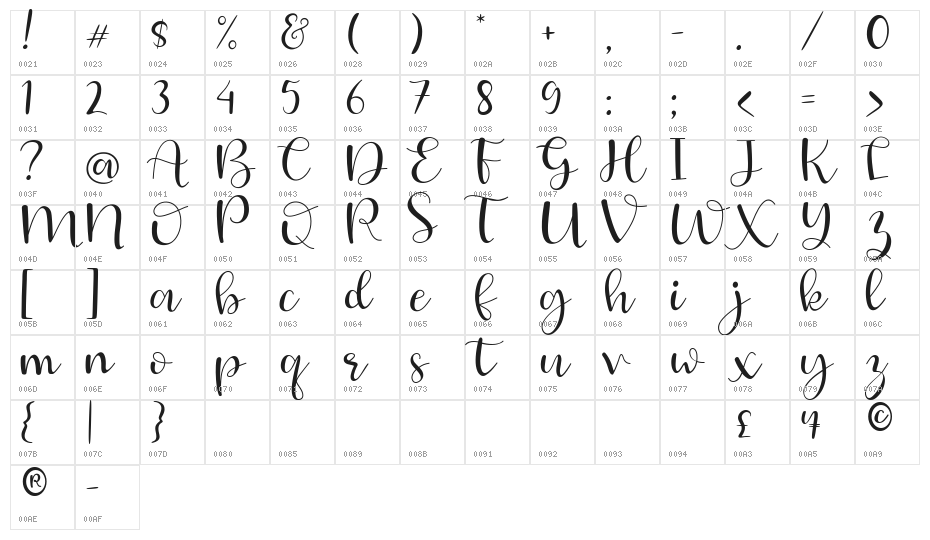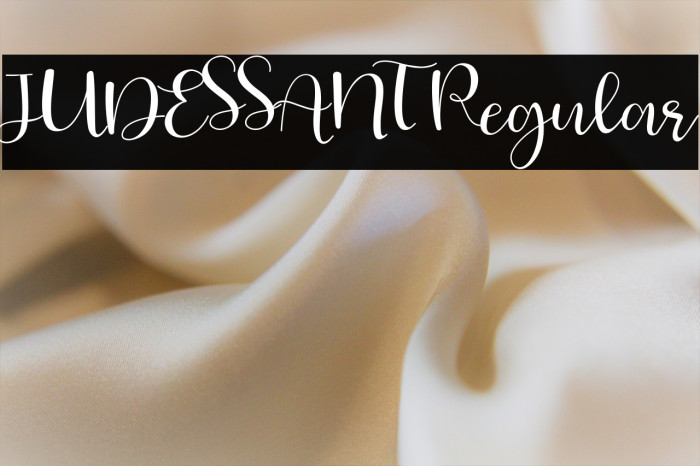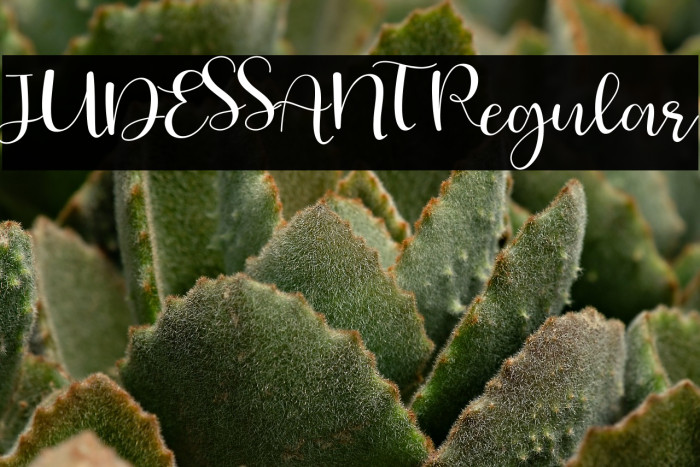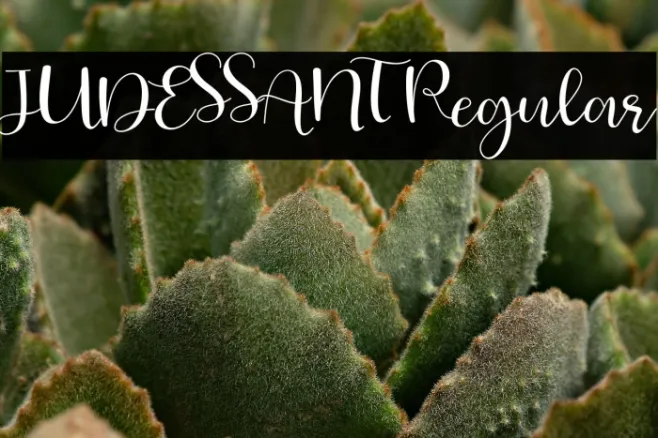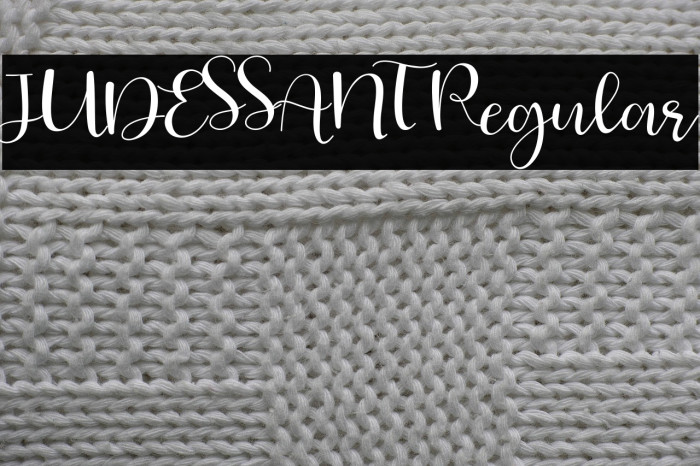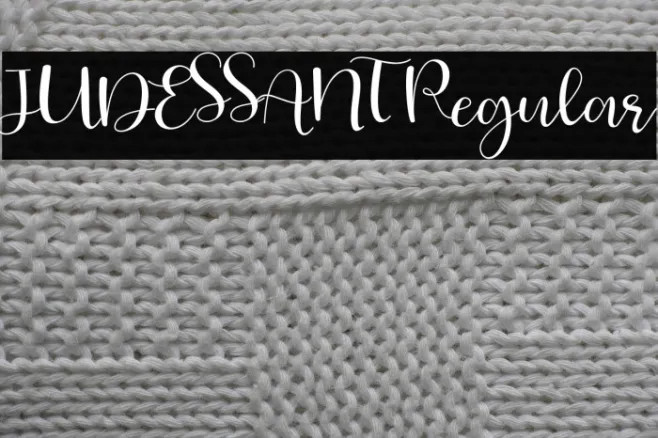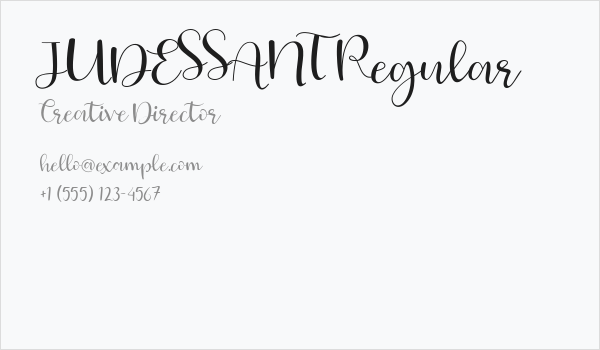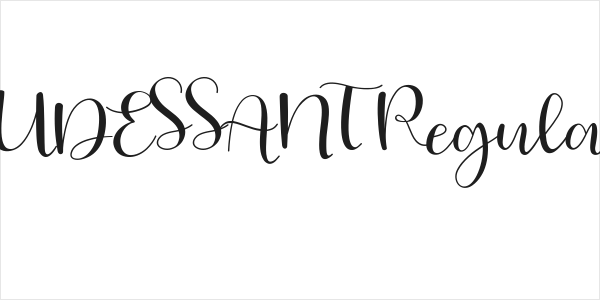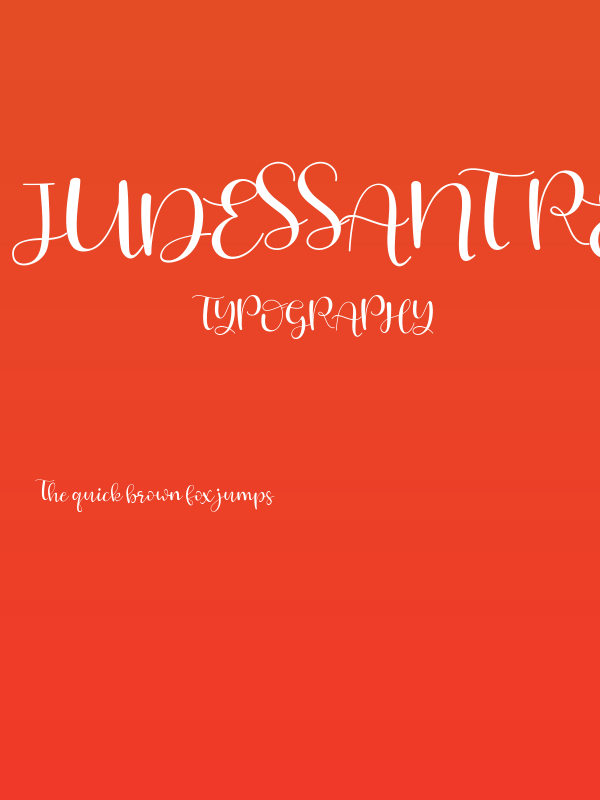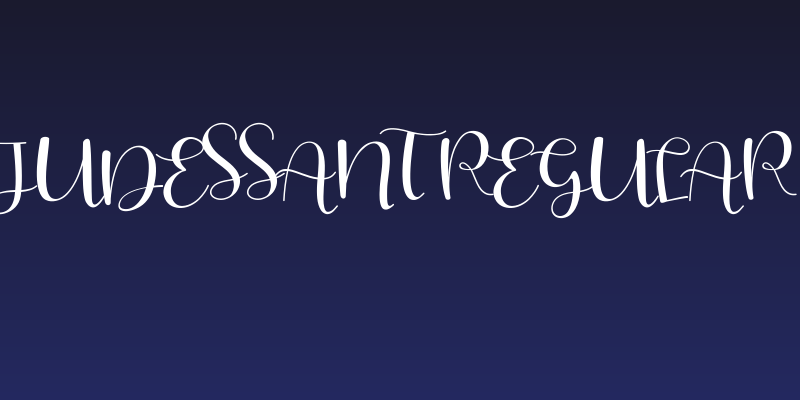
JUDESSANT Regular Font
JUDESSANT Regular Description
This font features a flowing, cursive style with elegant loops and swirls, giving it a sophisticated and artistic appearance. The uppercase letters are particularly ornate, with exaggerated curves and flourishes that add a sense of drama and flair. The lowercase letters maintain a consistent style, with smooth, connected strokes that enhance readability while preserving the decorative nature. The numerals and special characters are designed to match the overall aesthetic, with similar curves and embellishments. This font is ideal for projects that require a touch of elegance and creativity, such as invitations, greeting cards, or branding materials.
| Proposed Projects | Ideal for wedding invitations, greeting cards, branding, and artistic projects. |